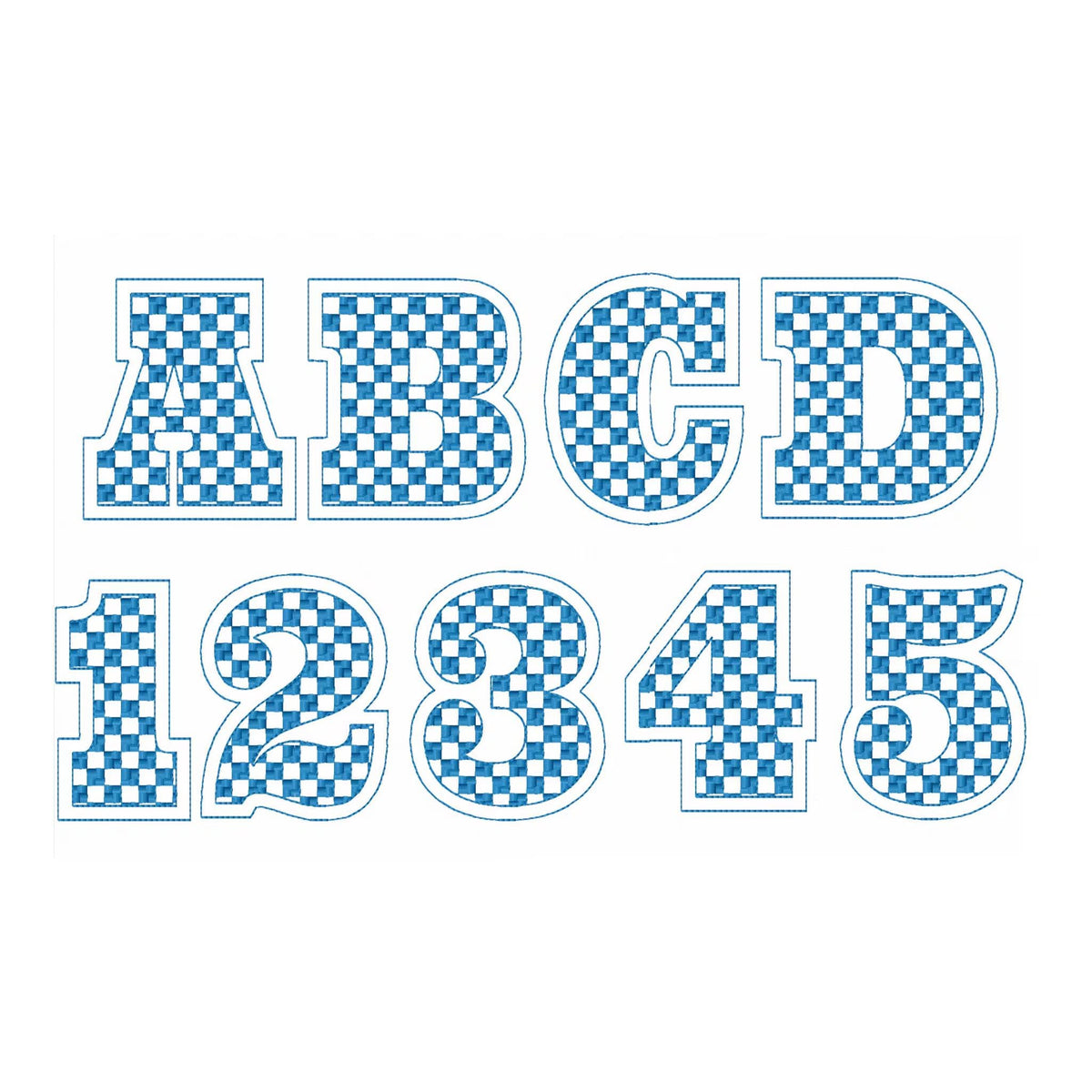
Big Outline Checkered Font
The letters come in five sizes: 2.7, 3.3, 4, 4.8 and 6 inches. Double outlines with checks stitched inside, no applique; the fabric shows through. Includes uppercase letters A to Z, numbers 0 to 9 and an ampersand.
- Big double outline checkered font
- Uppercase A to Z, numbers 0 to 9, ampersand
- 5 sizes, 2.7 to 6 in